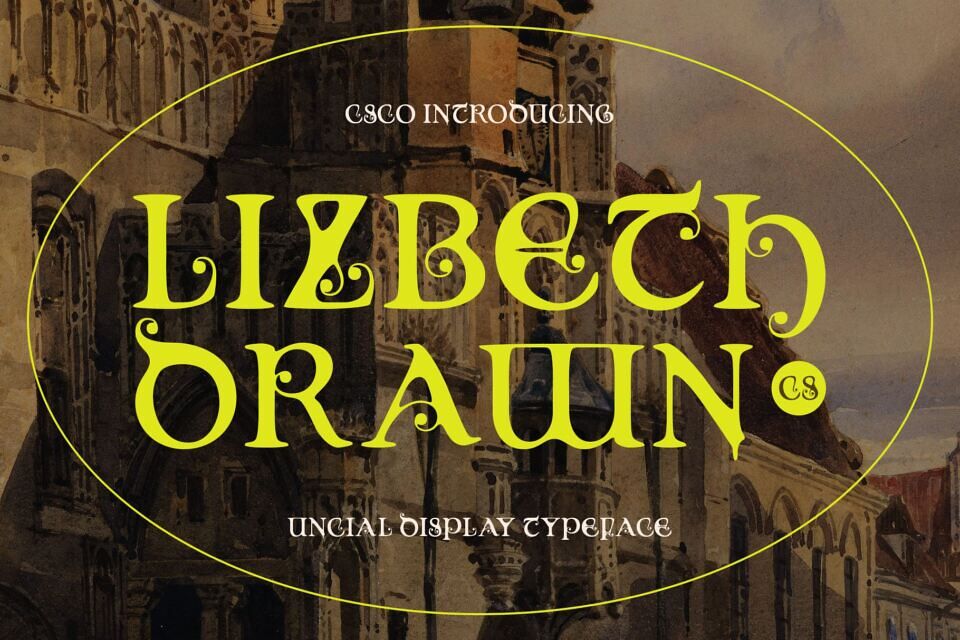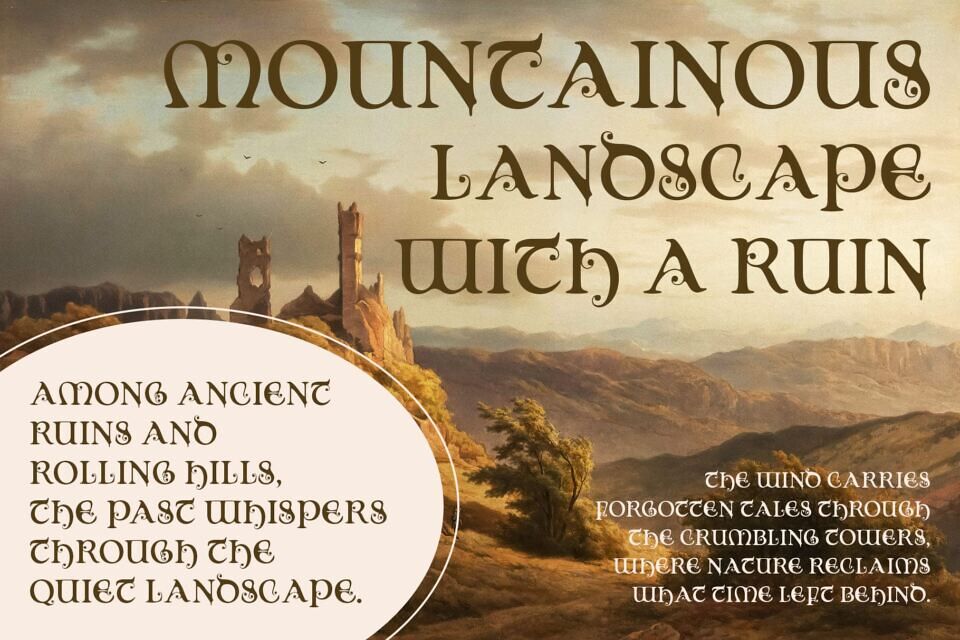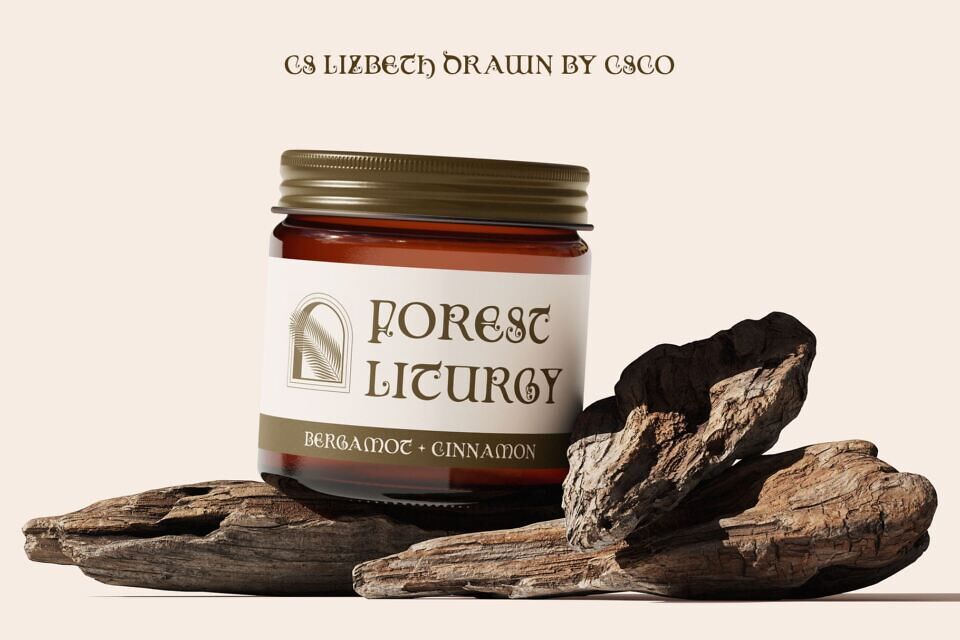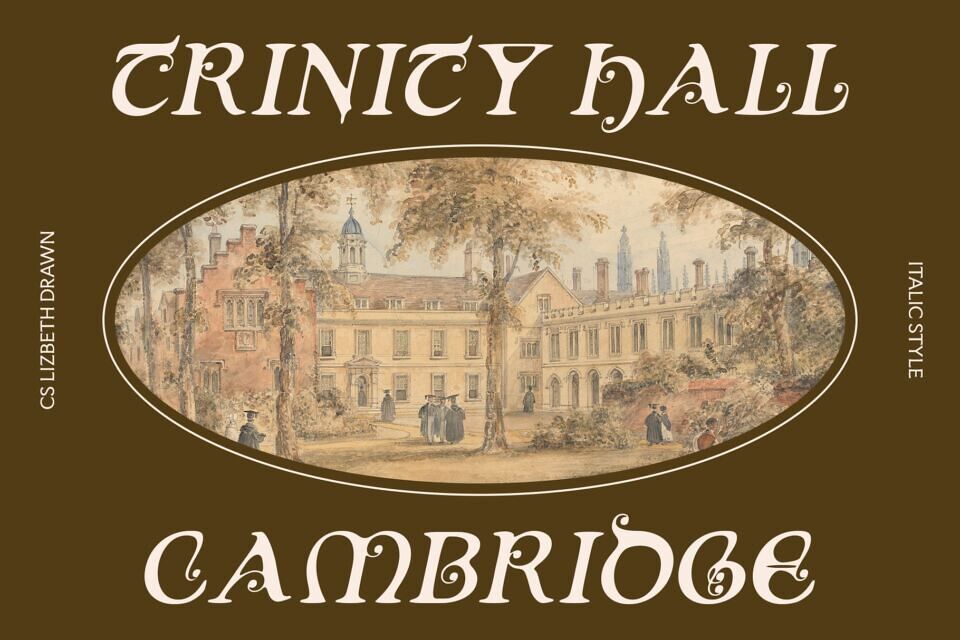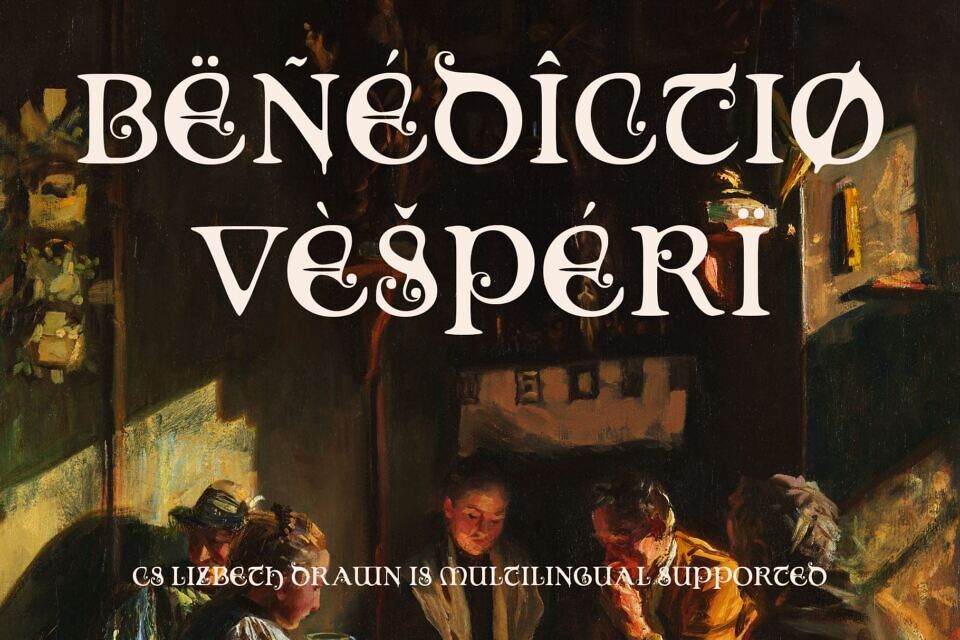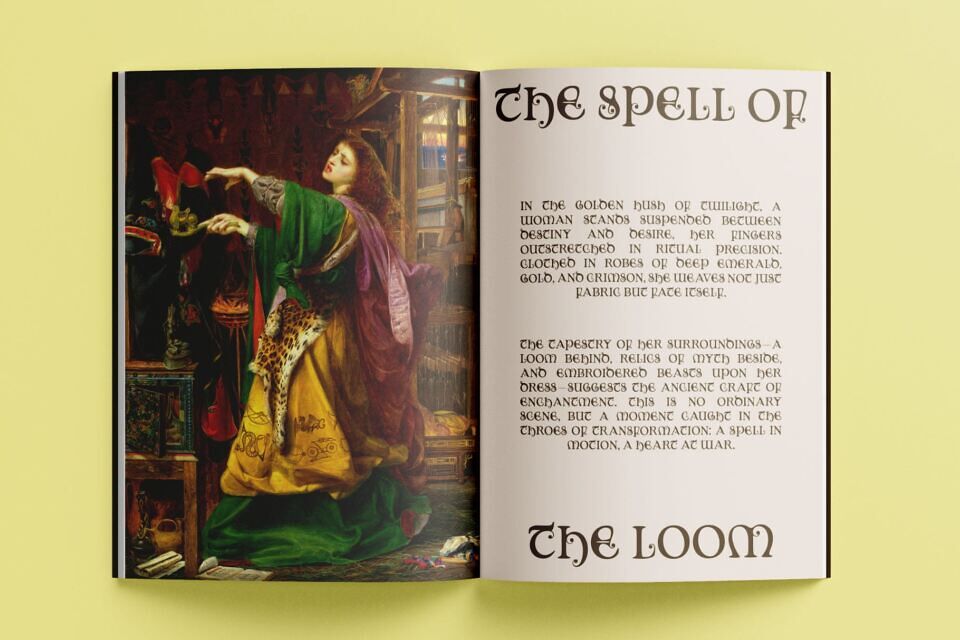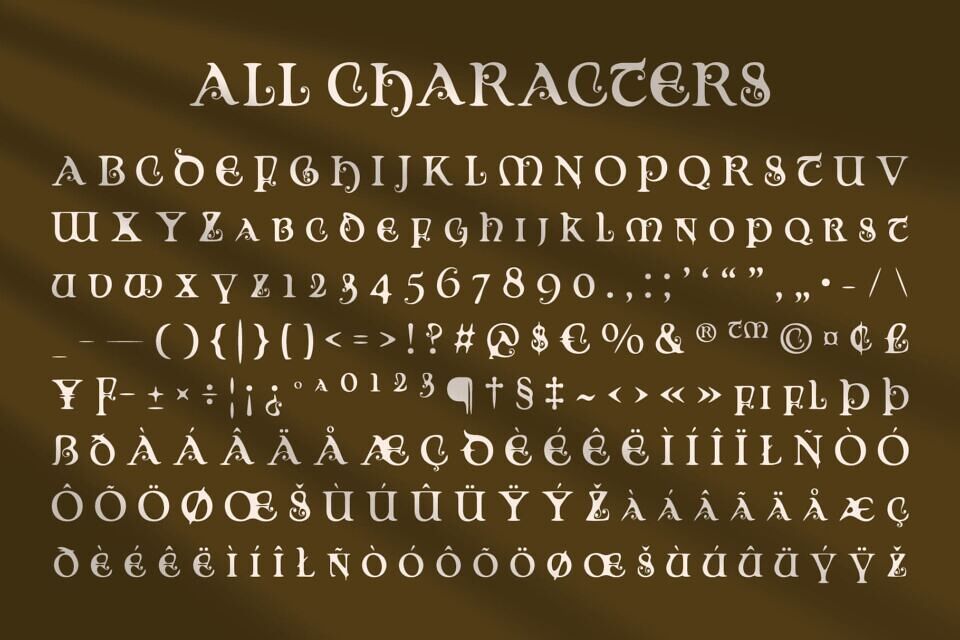
CS Lizbeth Drawn Font
CS Lizbeth Drawn is a modern display serif font that channels the timeless elegance of uncial forms. With rounded, manuscript-inspired letterforms, it brings a sense of heritage and tradition into contemporary design spaces. The structure is softened yet refined, offering a graceful silhouette rooted in history but adapted for modern aesthetics.
While grounded in classic calligraphy, this decorative font features simplified lines and well-balanced proportions that lend a modern sensibility. Its clean, flowing curves give the font an elegant rhythm that’s visually engaging without being overly ornate—ideal for sophisticated layouts that blend the past with the present.